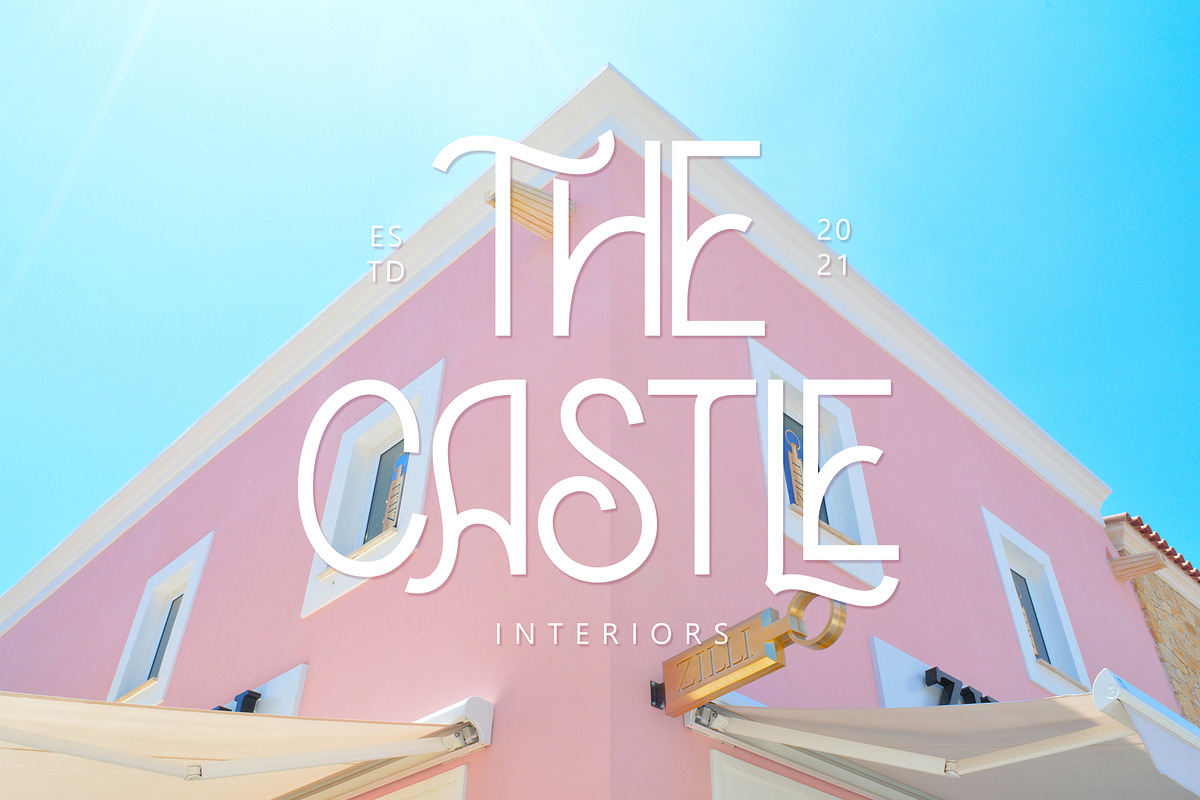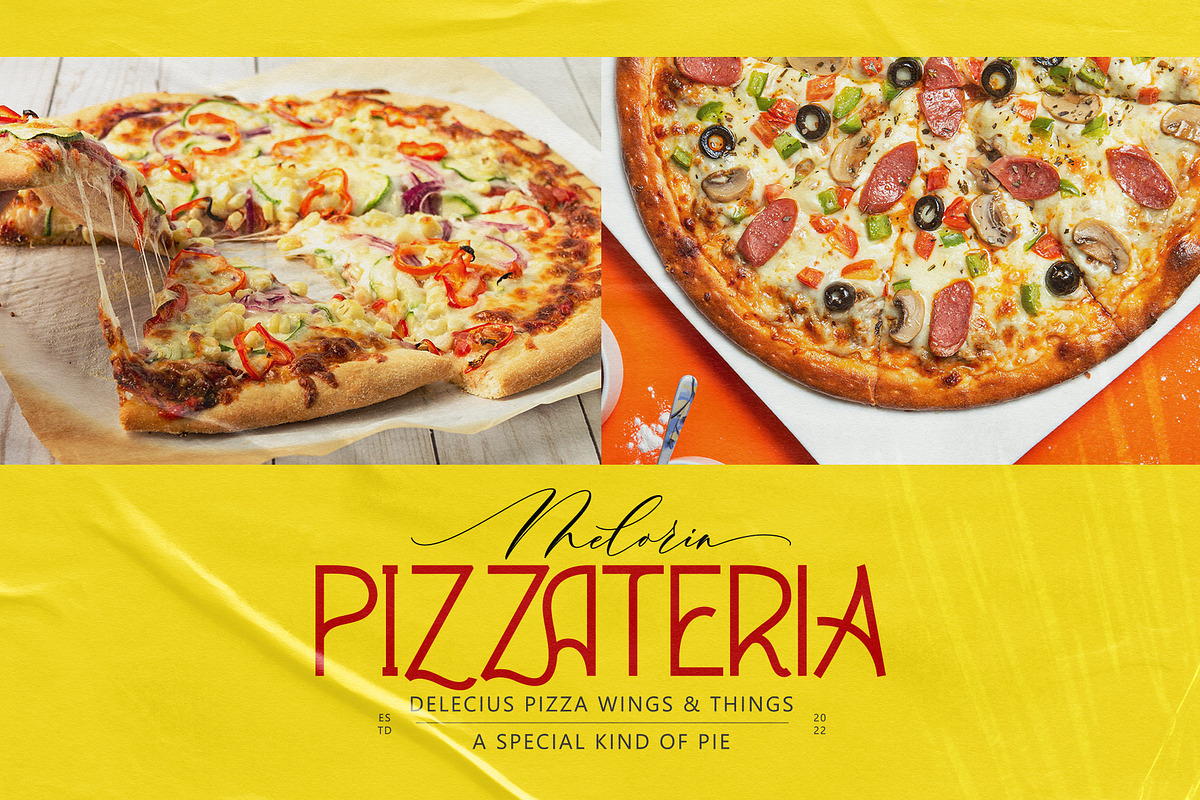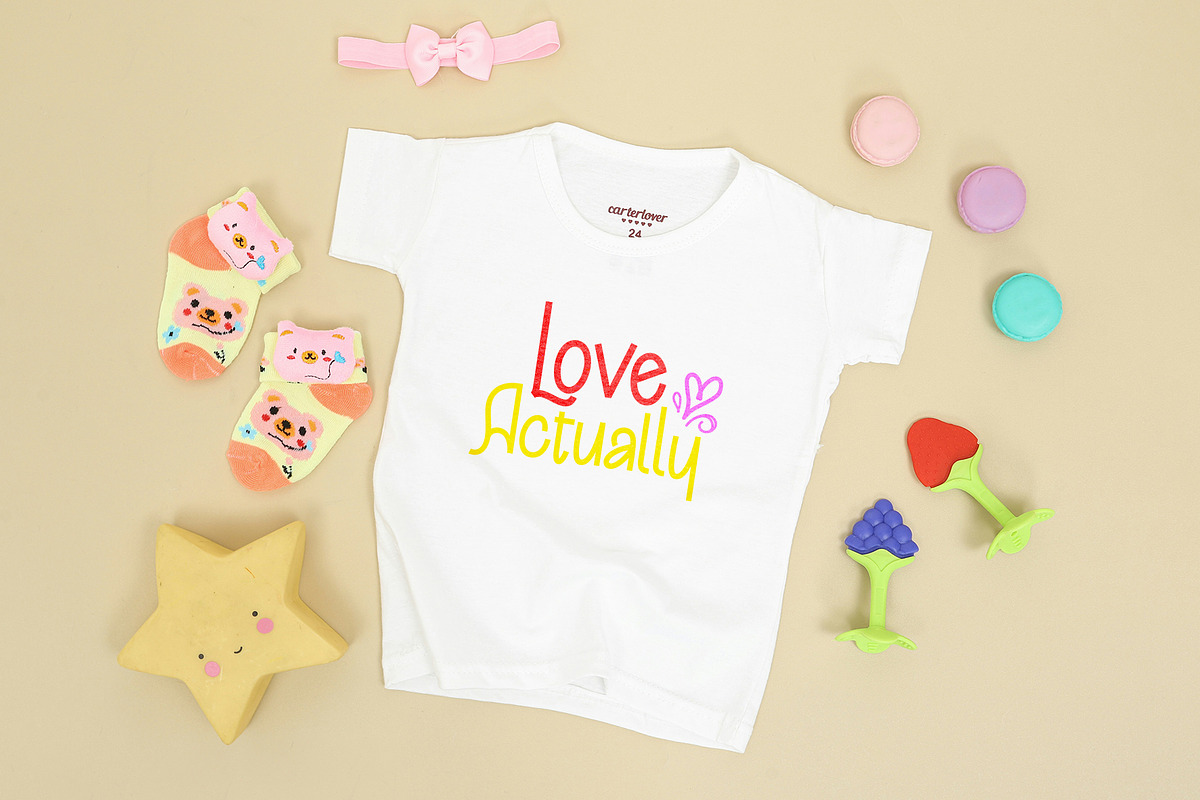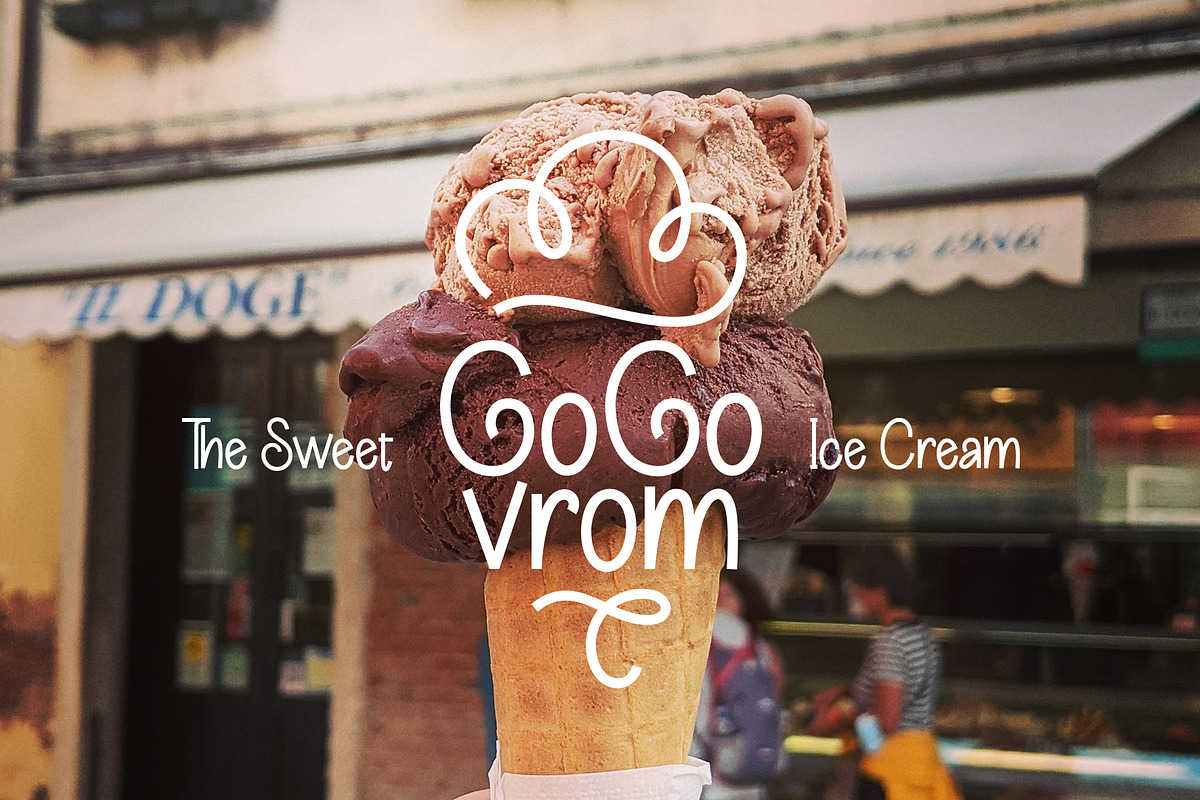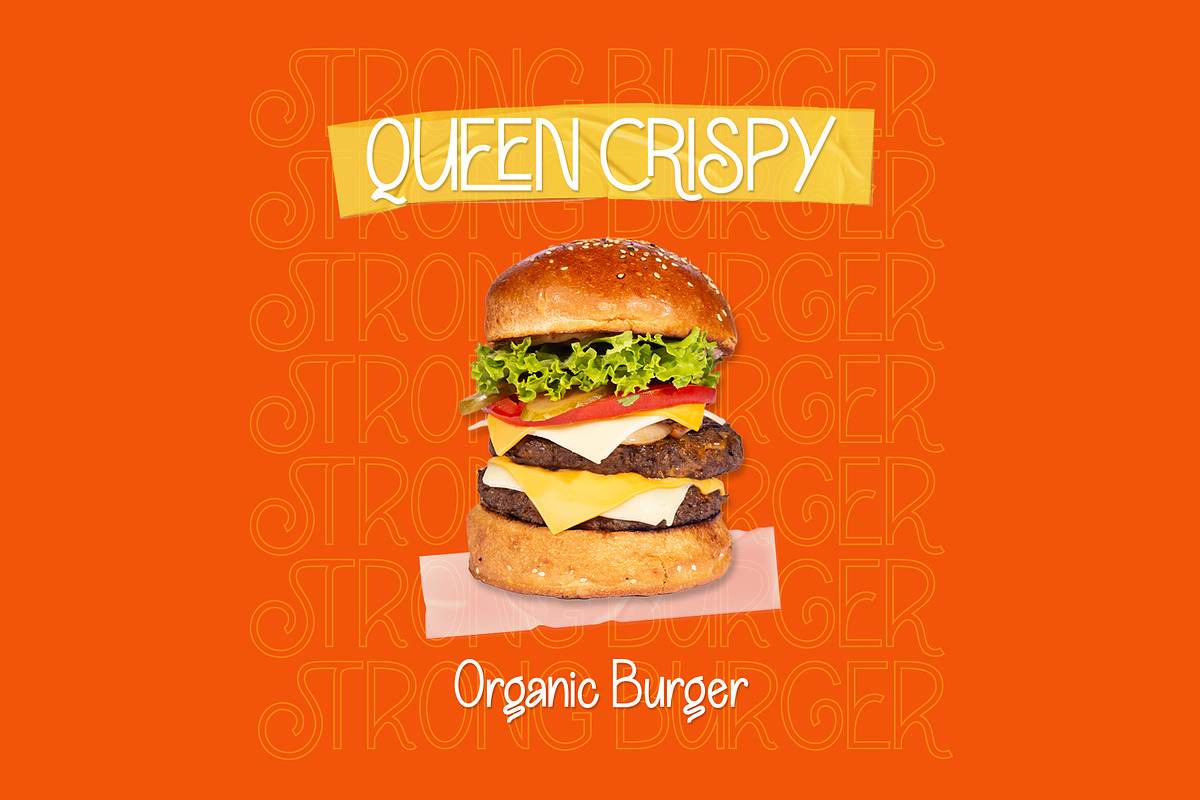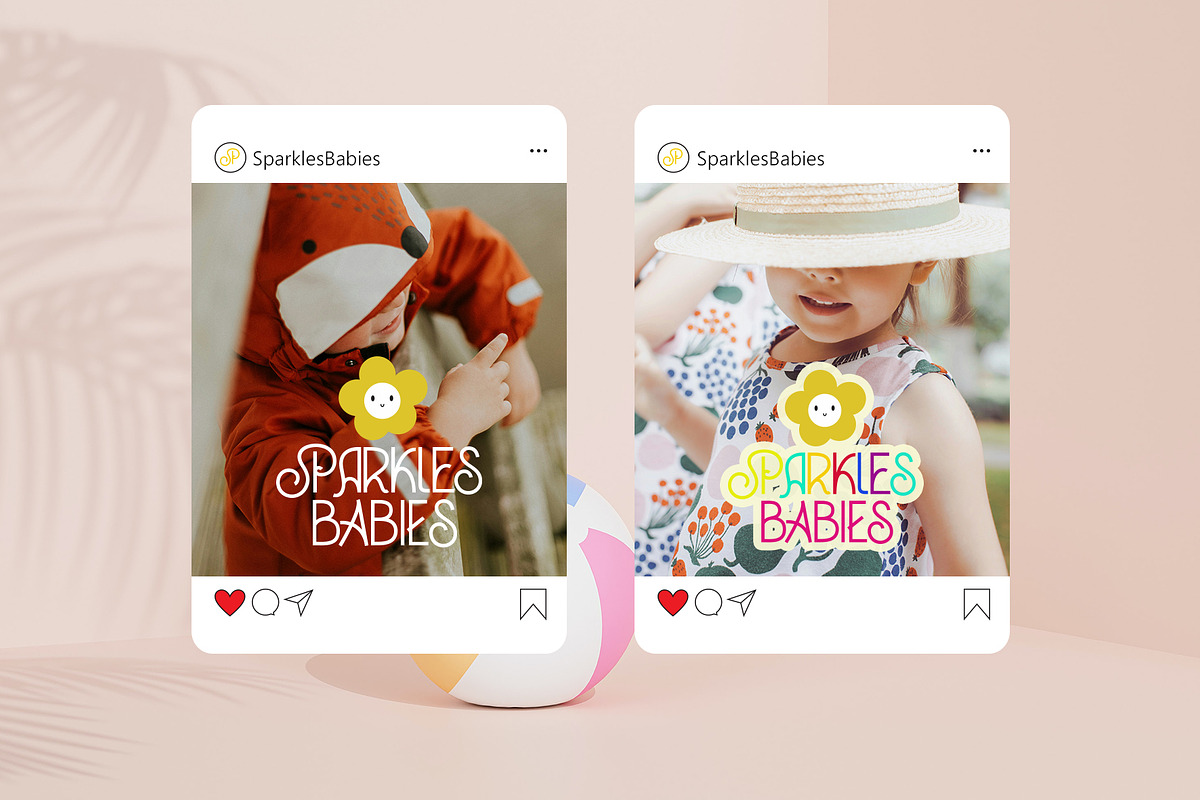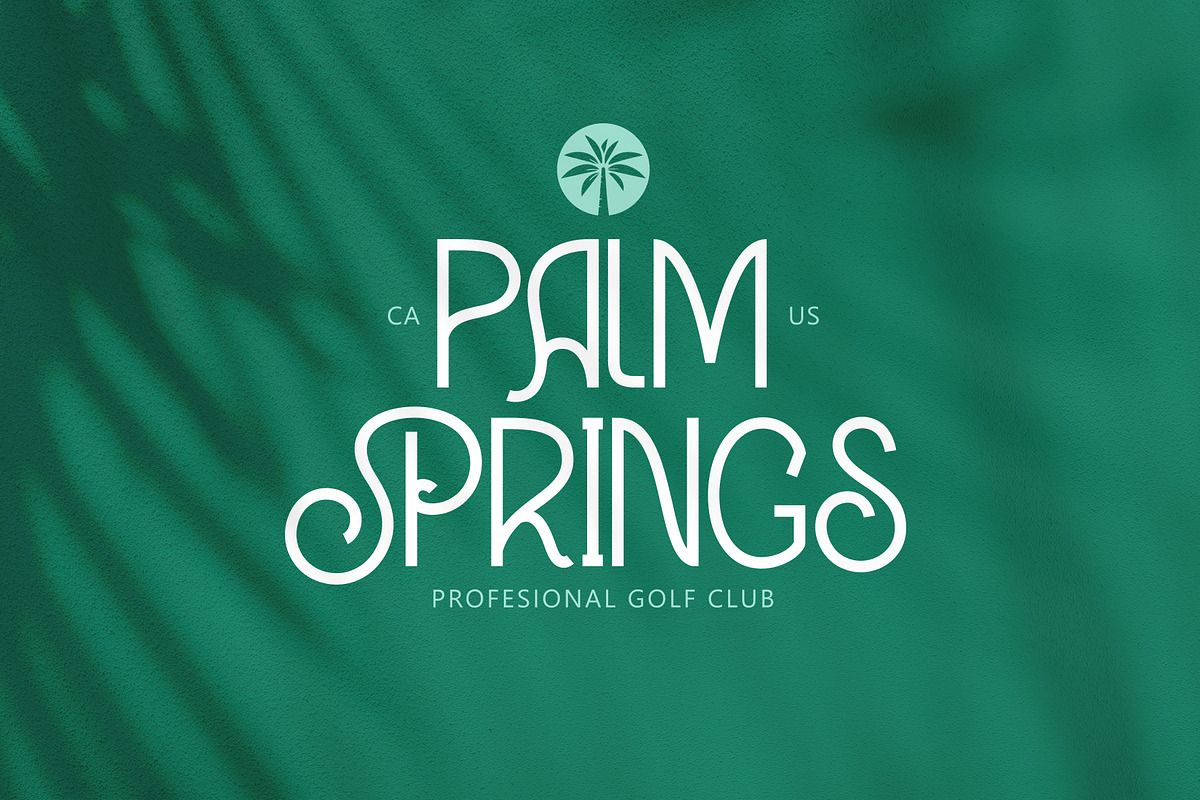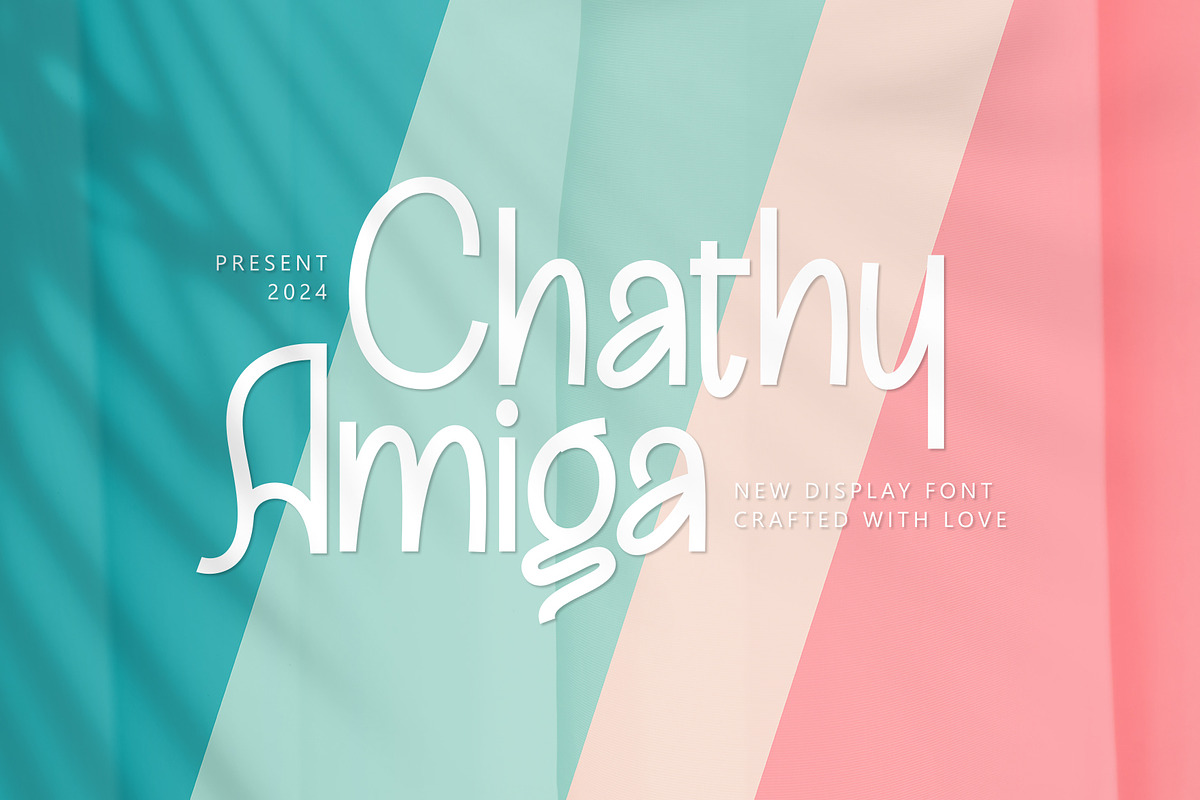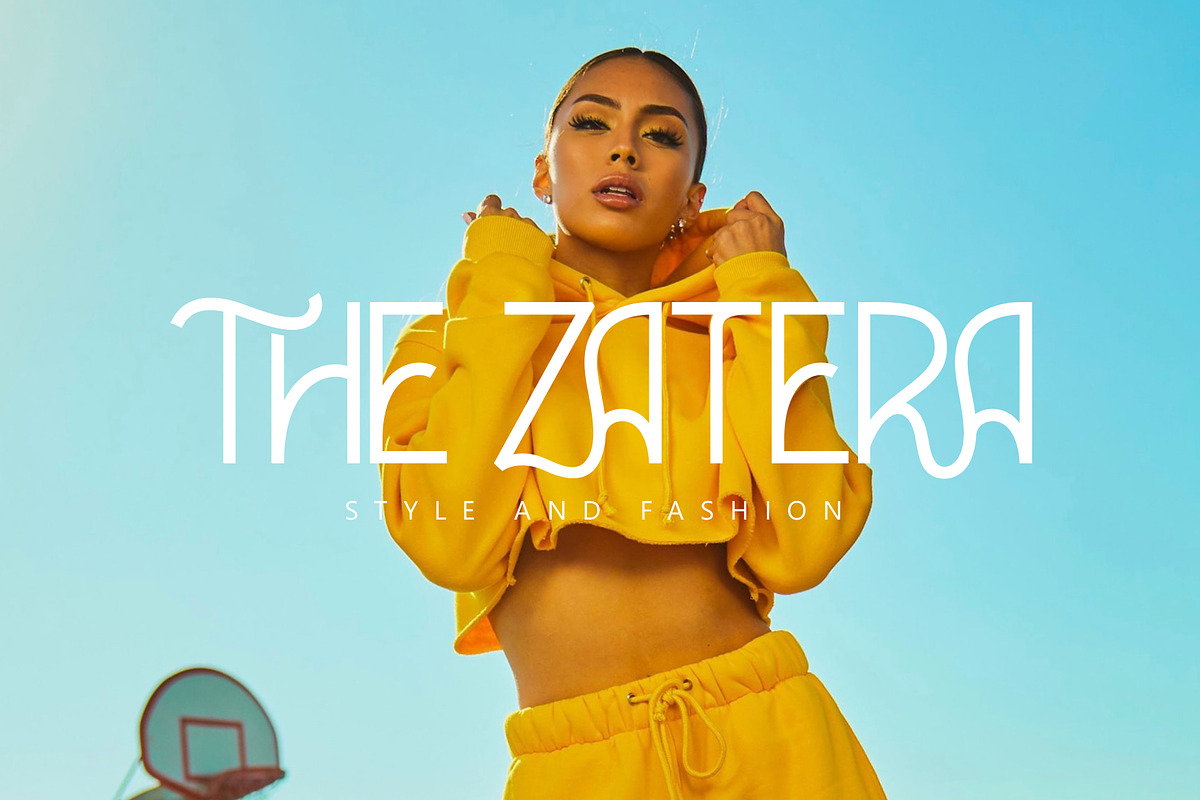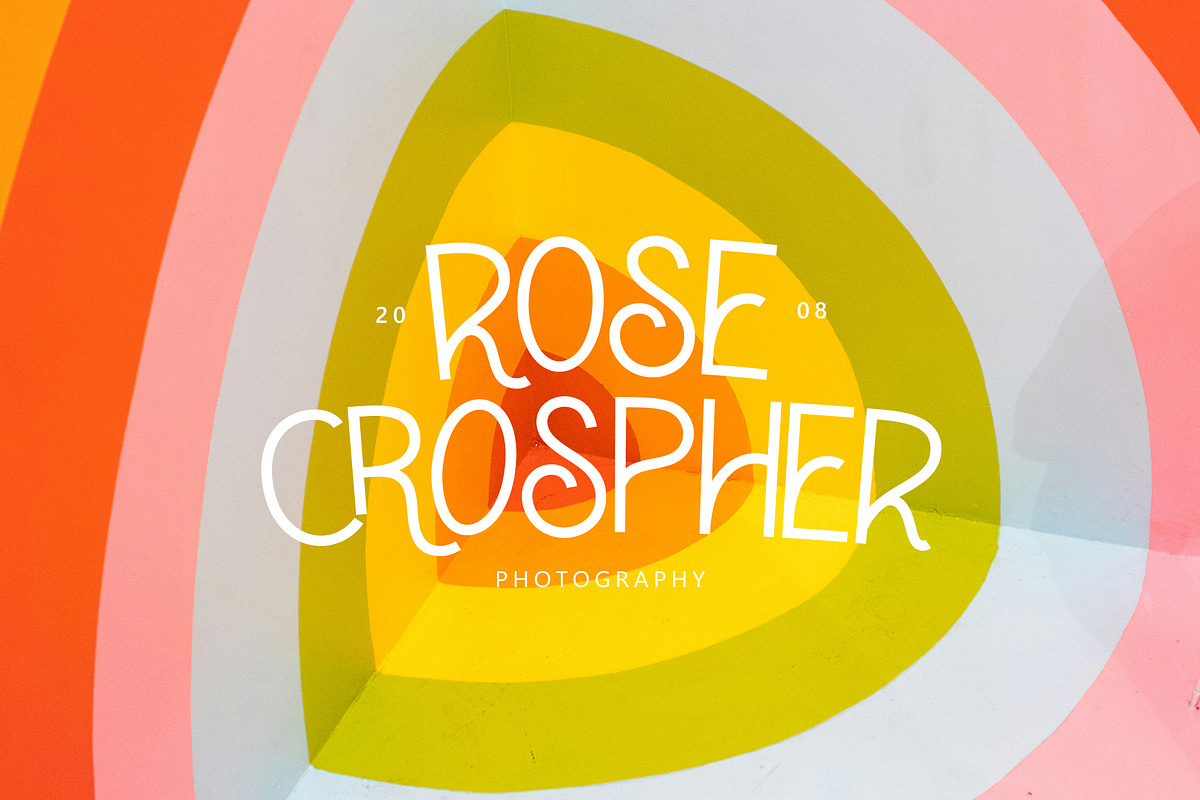
Cathy Amiga
Cathy Amiga is a beautiful display font that is suitable for branding, wedding invitations, greeting cards, posters, name card, quotes, blog header, logo, fashion, apparel, letter, stationery and other projects.
Cathy Amiga come with two variations alternative characters and many ligatures. Uppercase & Lowercase International Language & Symbols Support Punctuation & Number PUA Unicode Range Standard Stylistic Alternates Stylistic Set Character Variant Contextual.